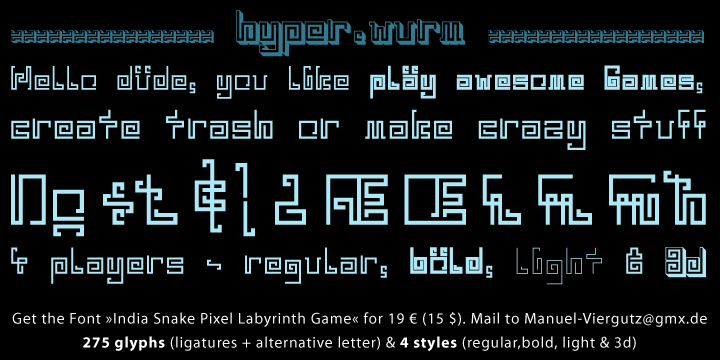
| Font name: | India Snake Pixel Labyrinth Game |
| Author: | Manuel Viergutz | Typo Graphic Design |
| Note by Manuel Viergutz | Typo Graphic Design | |
Headline Font / Display Font / Fancy Font "India Snake Pixel Labyrinth Game" OpenType Font with 275 glyphs - alternative letters and ligatures (with accents & €) & 4 styles (regular, bold, light & 3d) INFO If you want to use this font for commercial projects, please contact me: manuel-viergutz[at]gmx.de or donate an amount greater-than-or-equal EUR 15/$ 19 (for commercial licence). I also appreciate it if you send me links/images of your (non)-commercial work featuring this font. |